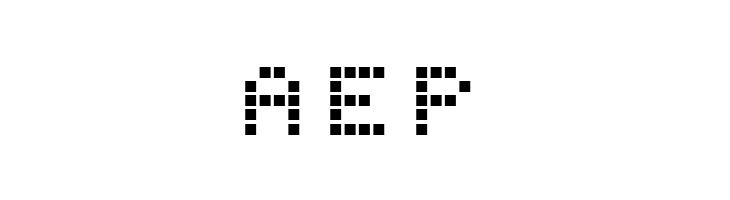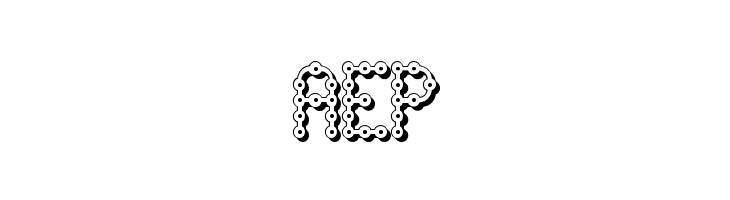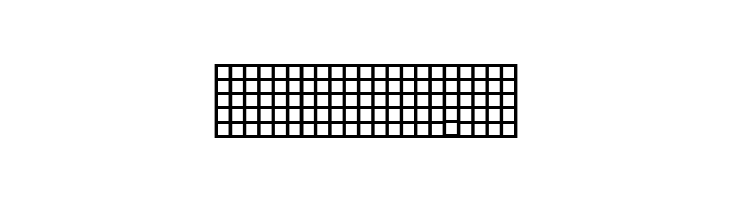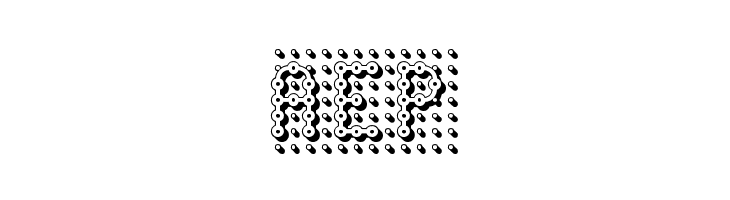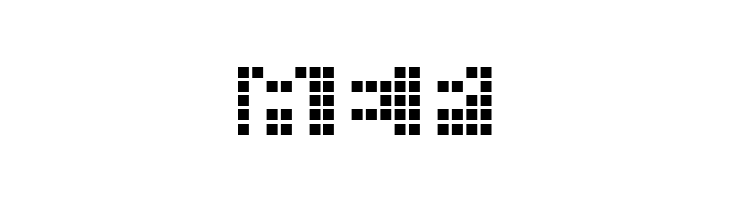
A pixelated, retro-style font with a blocky, geometric design.
A pixelated, monospaced font with a digital, grid-like appearance.
A pixelated, grid-based font with a retro digital aesthetic.
A decorative, geometric font with a pixelated, grid-like design.
A pixelated, retro-style font with a blocky, geometric design.
A playful, chain link-inspired decorative font with interconnected circular elements.
A dotted, grid-like font with characters formed by interconnected circles.
A playful, chain-like decorative font with bold outlines and circular patterns.